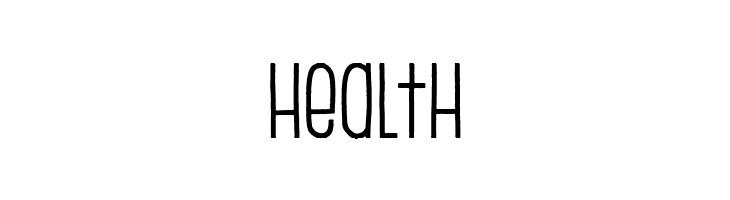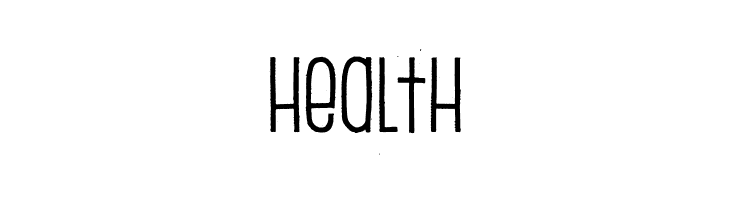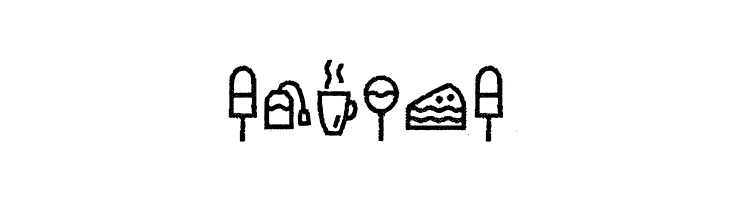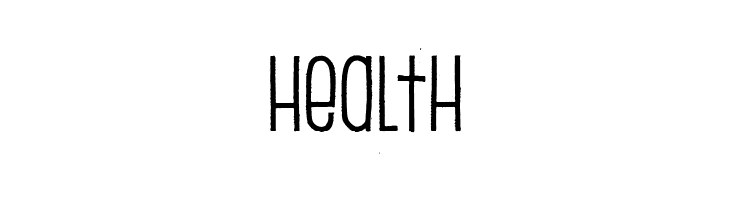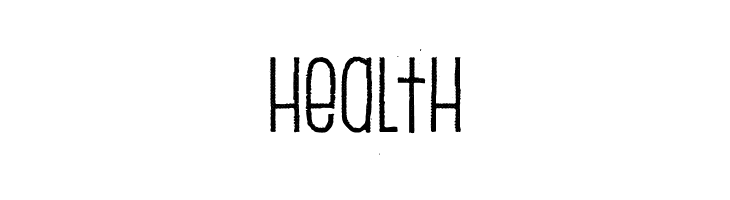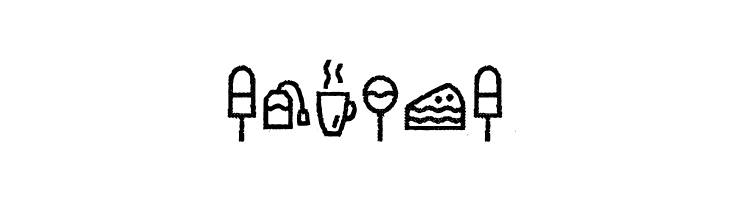
A playful, narrow, and monoline font with a hand-drawn feel.
A tall, narrow font with a playful and quirky character.
A playful icon set featuring food, beverages, and decorative symbols with a cartoonish style.
Outlined, playful icons with a food and navigation theme.
A playful, hand-drawn font with tall, narrow letters and rounded edges.
A hand-drawn, narrow font with a whimsical and artistic style.
A tall, narrow font with a playful and modern style.
A playful, hand-drawn font with tall, narrow letterforms and a slightly rough texture.
A playful and cohesive set of food and drink icons with a modern, cartoon-like style.
A playful icon set featuring food, drinks, and directional elements with bold outlines.